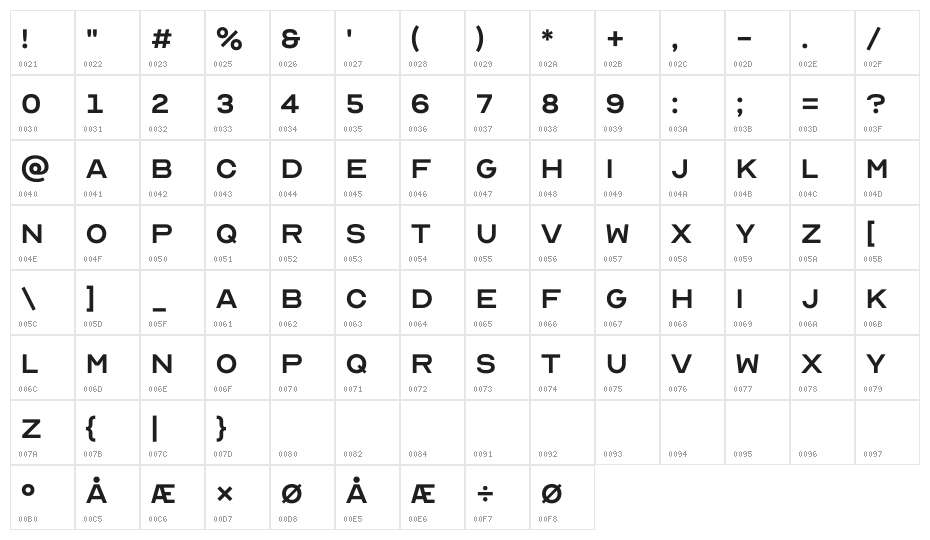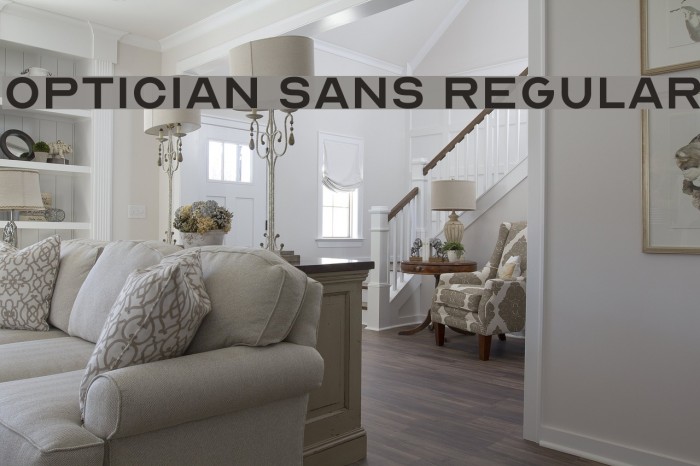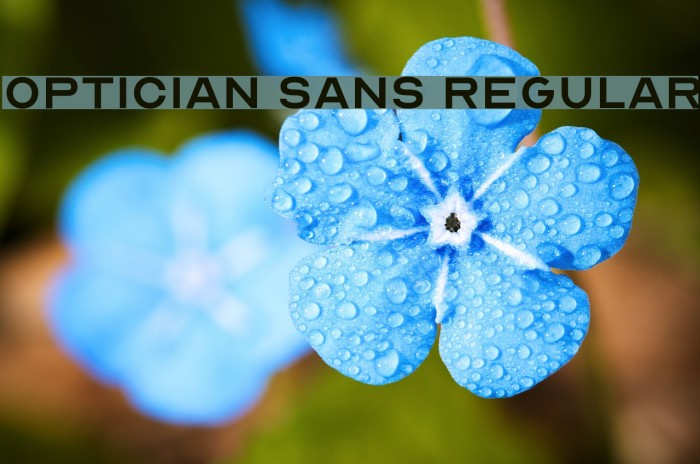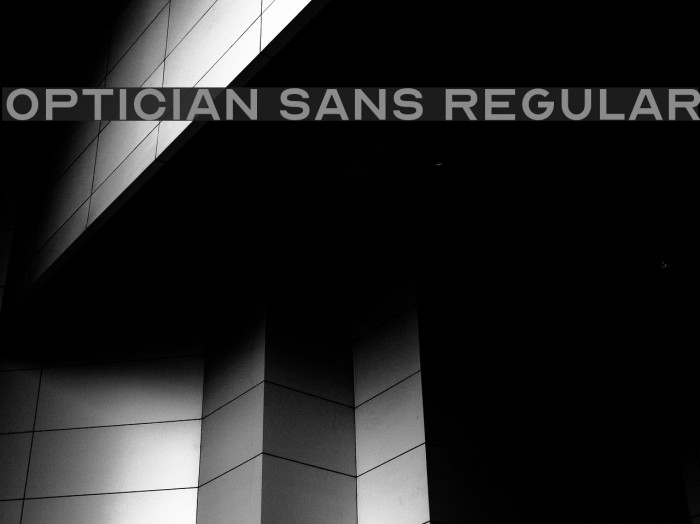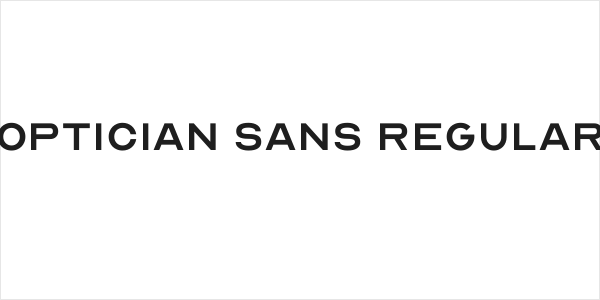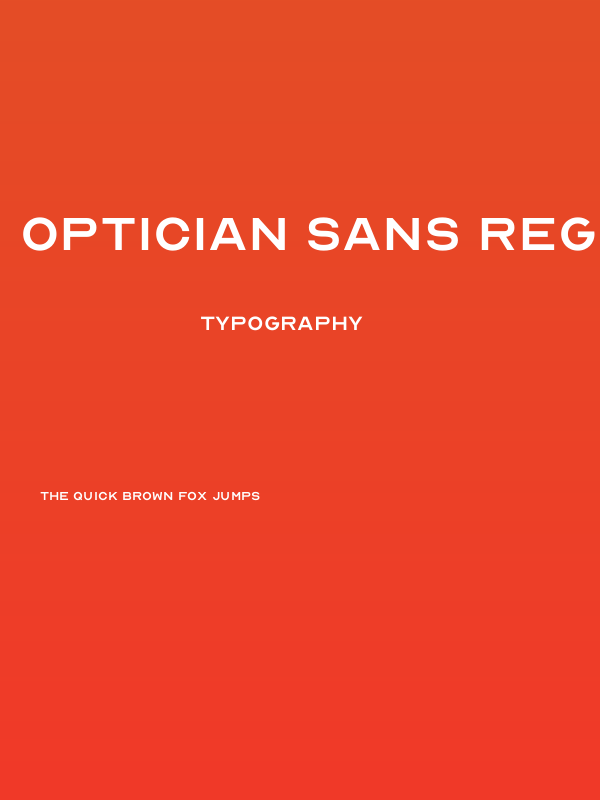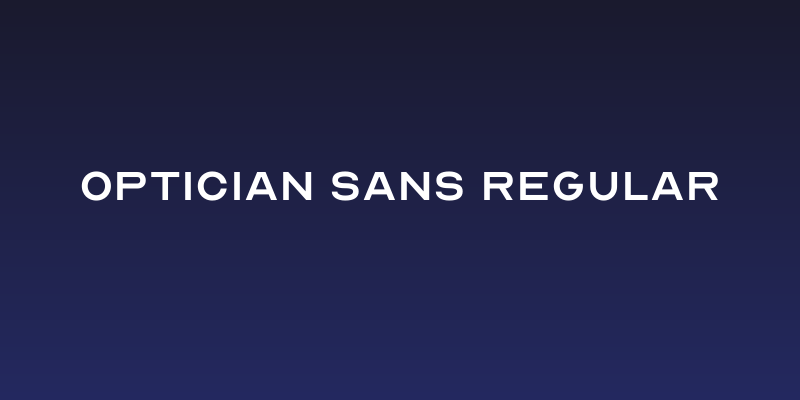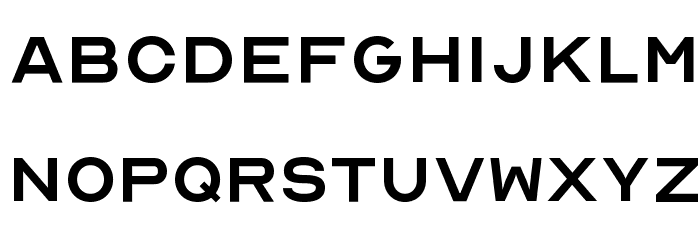
Optician Sans Regular Font
This font features a clean, modern sans-serif style with uniform stroke widths and a geometric structure. The characters are well-balanced, offering excellent readability and clarity. The uppercase and lowercase letters maintain a consistent height and width, contributing to a harmonious appearance. The numerals are straightforward and align well with the overall design, while the special characters are distinct and easily recognizable. This font is versatile, suitable for both digital and print media, and can be used effectively in various design contexts.